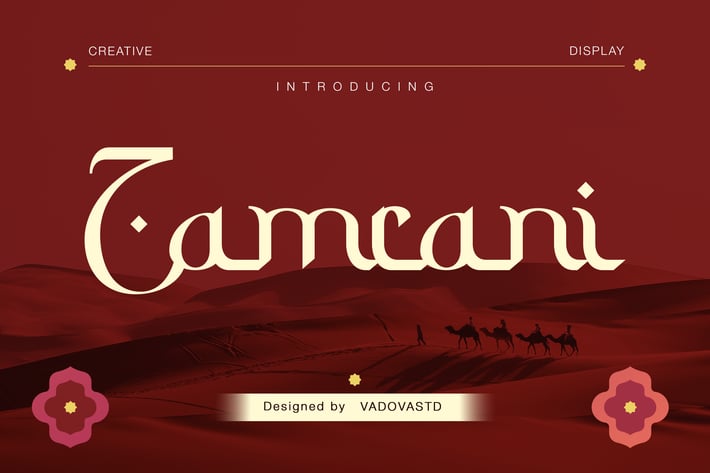
Zamrani Creative Display Font
Zamrani Arabic Display Font is an elegant display serif font inspired by traditional Islamic and Arabic calligraphy. With refined curves, pointed details, and unique ligatures, it brings a touch of Middle Eastern heritage into modern design. Perfect for luxury branding, cultural-themed projects, editorial headlines, Ramadan or Eid promotions, and Islamic wedding invitations, Tamcani blends elegance with spiritual symbolism. Its strong visual character supports multilingual use, making it suitable for global design needs while preserving its rich, artistic roots.